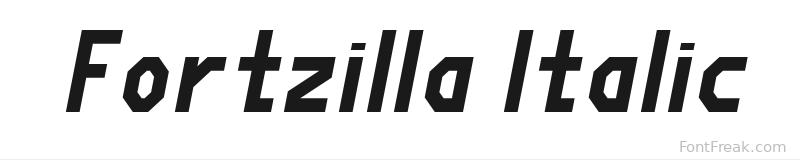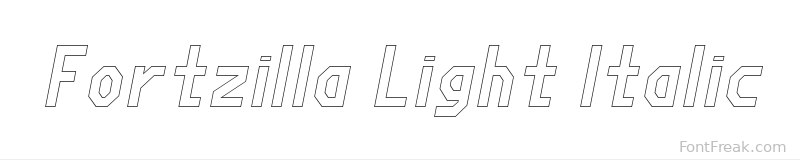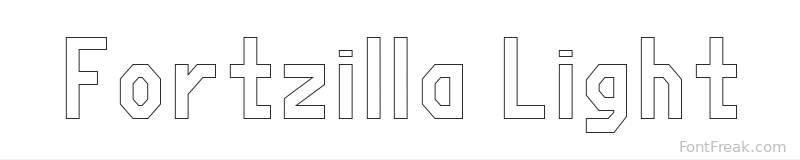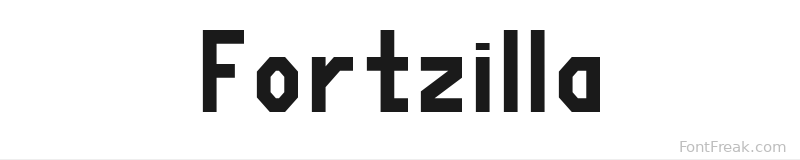
Fortzilla Light
Fortzilla Light Italic
Fortzilla Italic
Fortzilla
Fortzilla Light by GGBot is a modern sans-serif font that embodies a unique blend of elegance and contemporary style. This typeface features a clean, geometric design with a light stroke weight that gives it a refined and airy appearance. The subtle contrast between the strokes adds a touch of sophistication, making it an excellent choice for various design applications. Its balanced spacing ensures readability and makes it visually appealing for both digital and print formats.
The Fortzilla Light font is particularly well-suited for a range of creative projects. It shines in wedding invitations, offering a stylish yet understated elegance that captures the essence of special moments. Additionally, its modern aesthetic makes it ideal for movie posters, where it can convey a sense of excitement and anticipation. Restaurant menus can also benefit from Fortzilla Light, as its clean lines make the text easy to read while enhancing the overall dining experience. Content creators will find it useful for social media graphics, where its contemporary look can attract attention while maintaining clarity.
What sets Fortzilla Light apart is its ability to merge simplicity with style, making it a standout choice for anyone looking to elevate their design projects. Whether you are crafting a digital flyer or a printed piece, downloading the Fortzilla Light font for free provides you with a contemporary typeface that enhances your visual storytelling. Explore this unique font to add a touch of modern elegance to your creative endeavors.